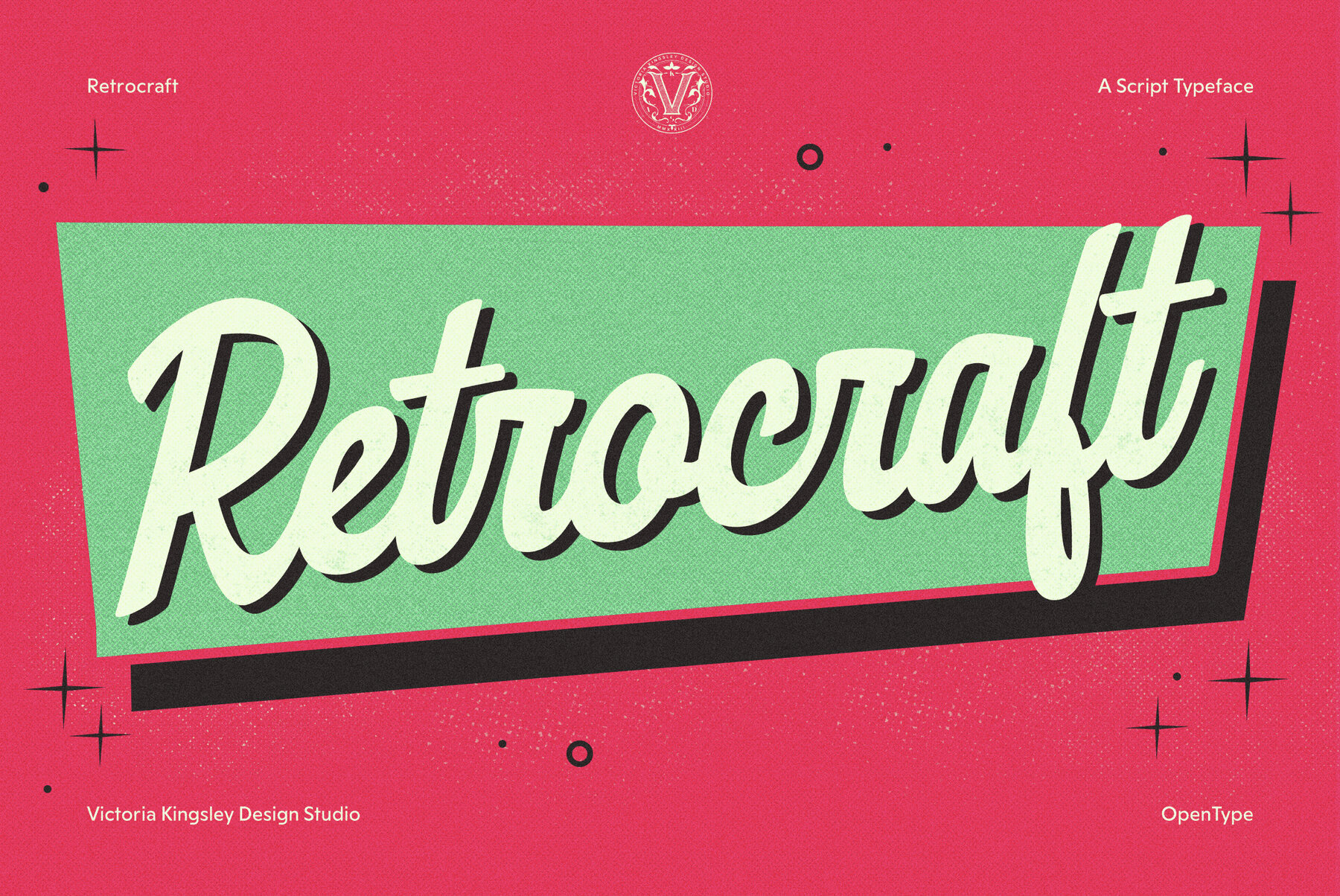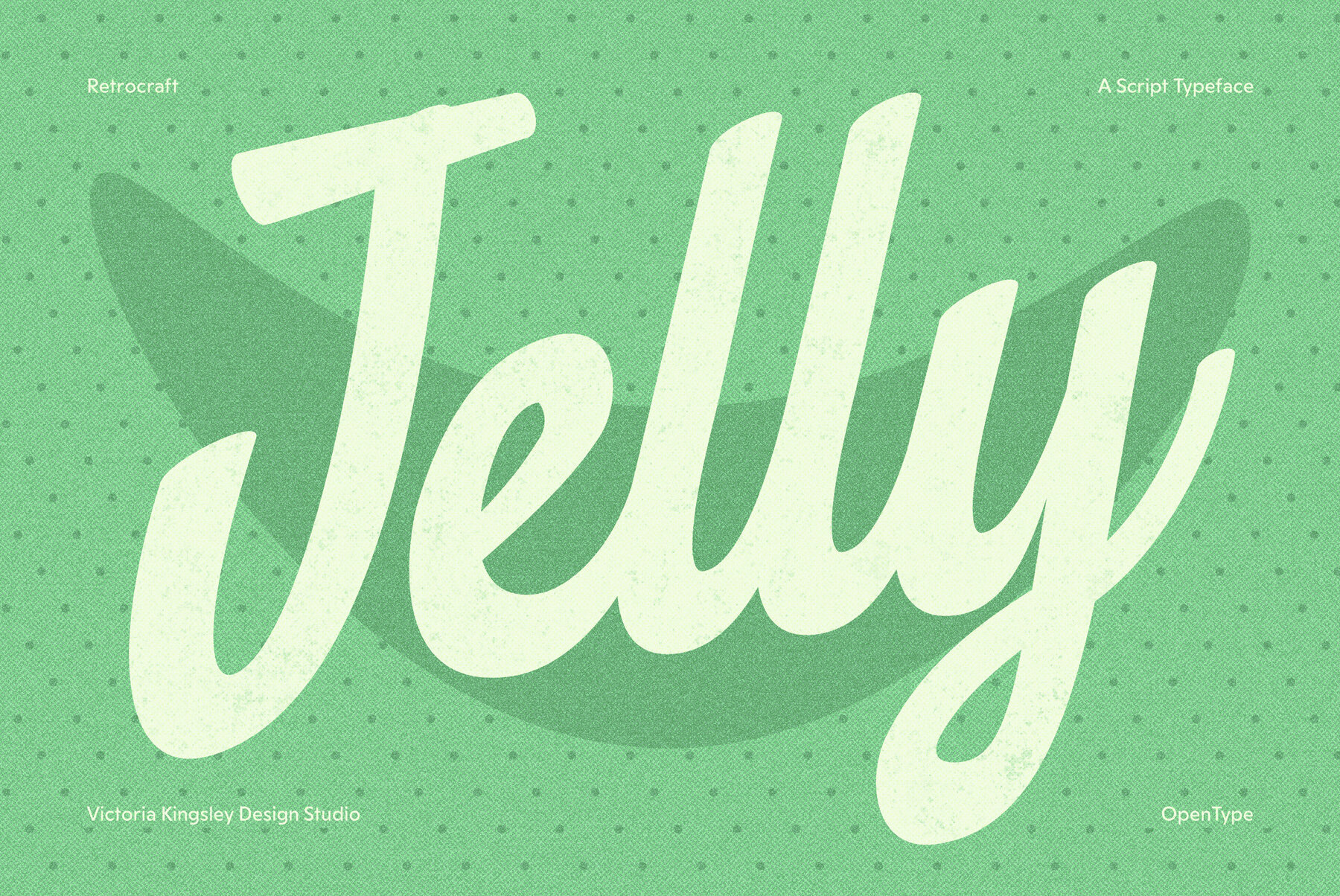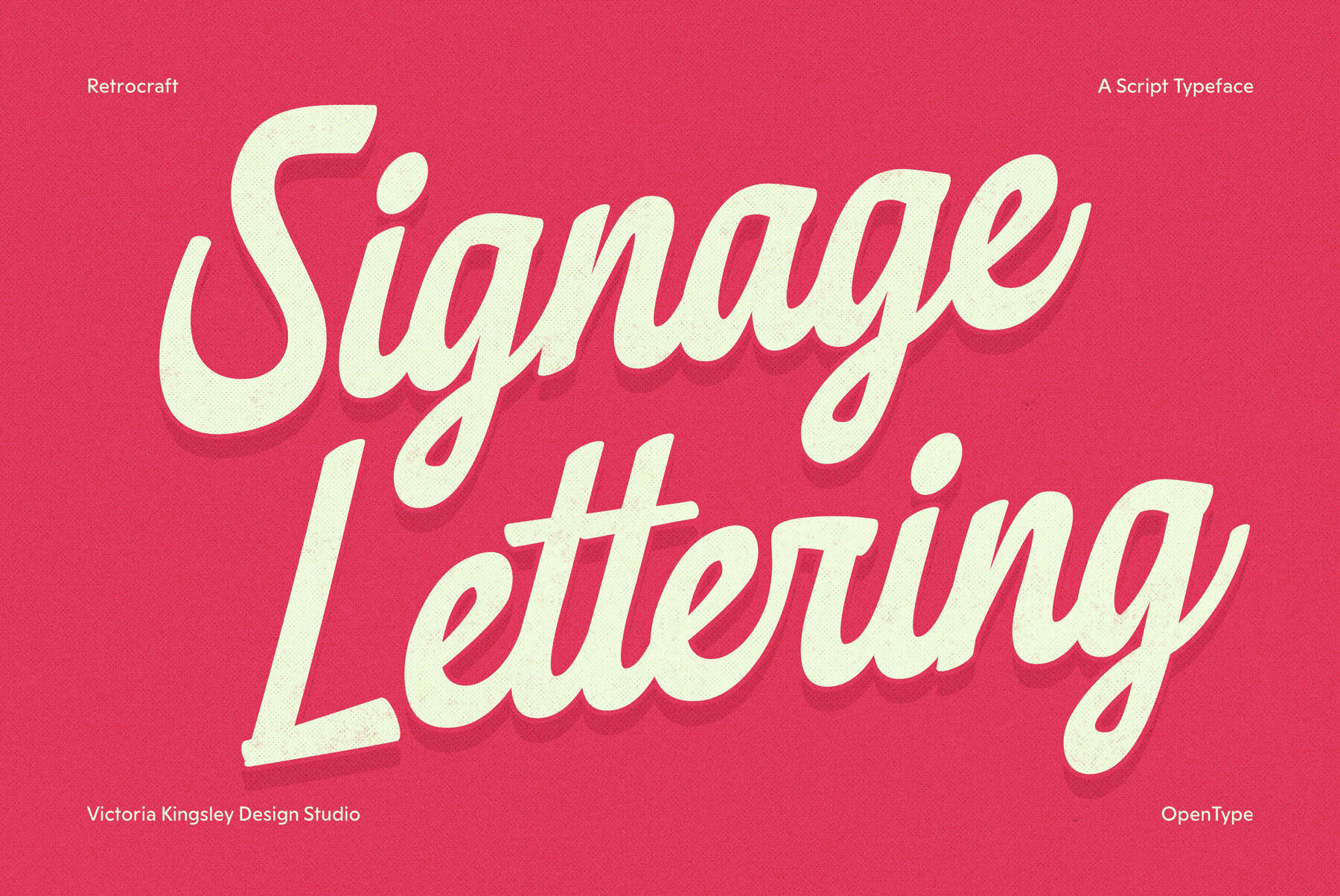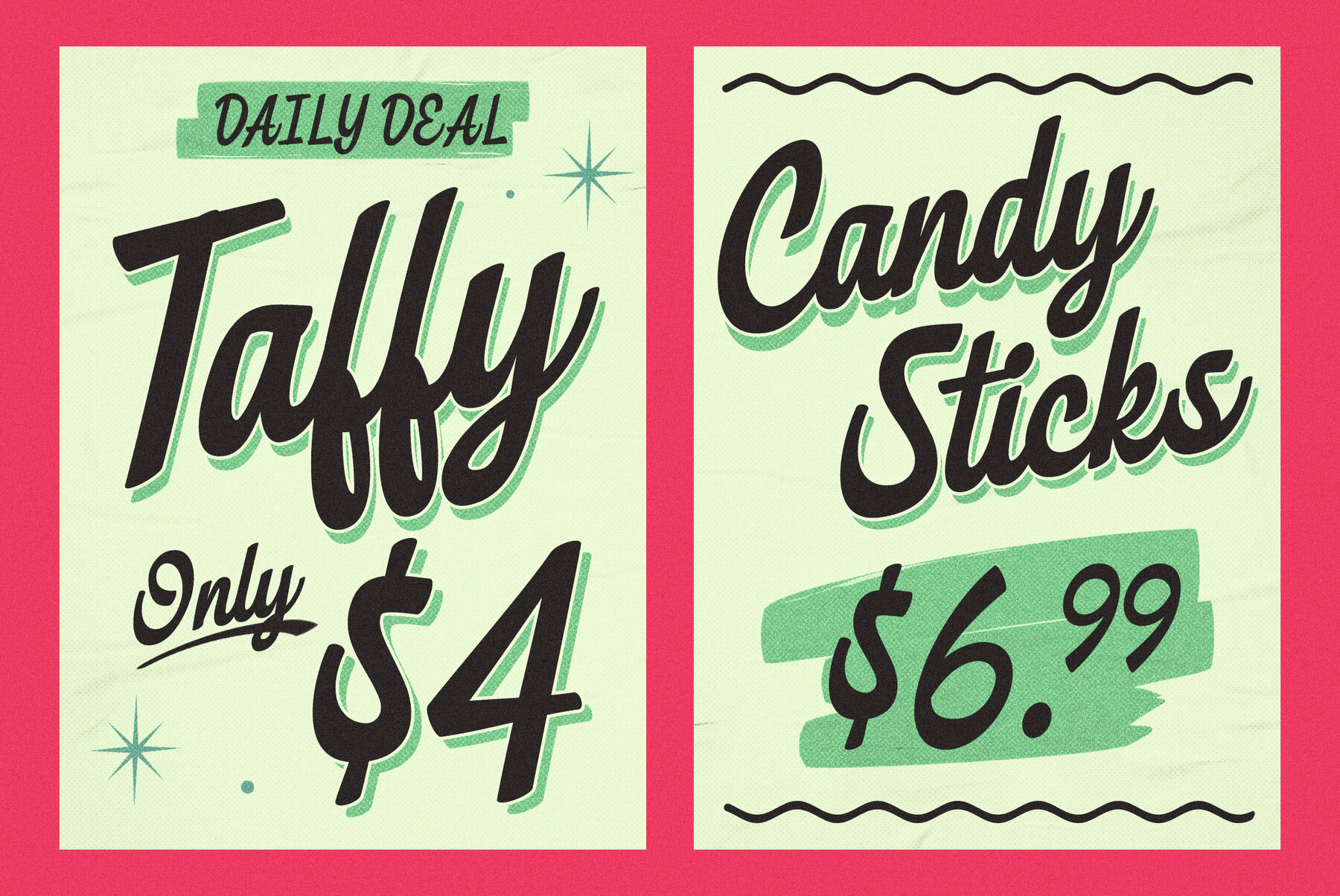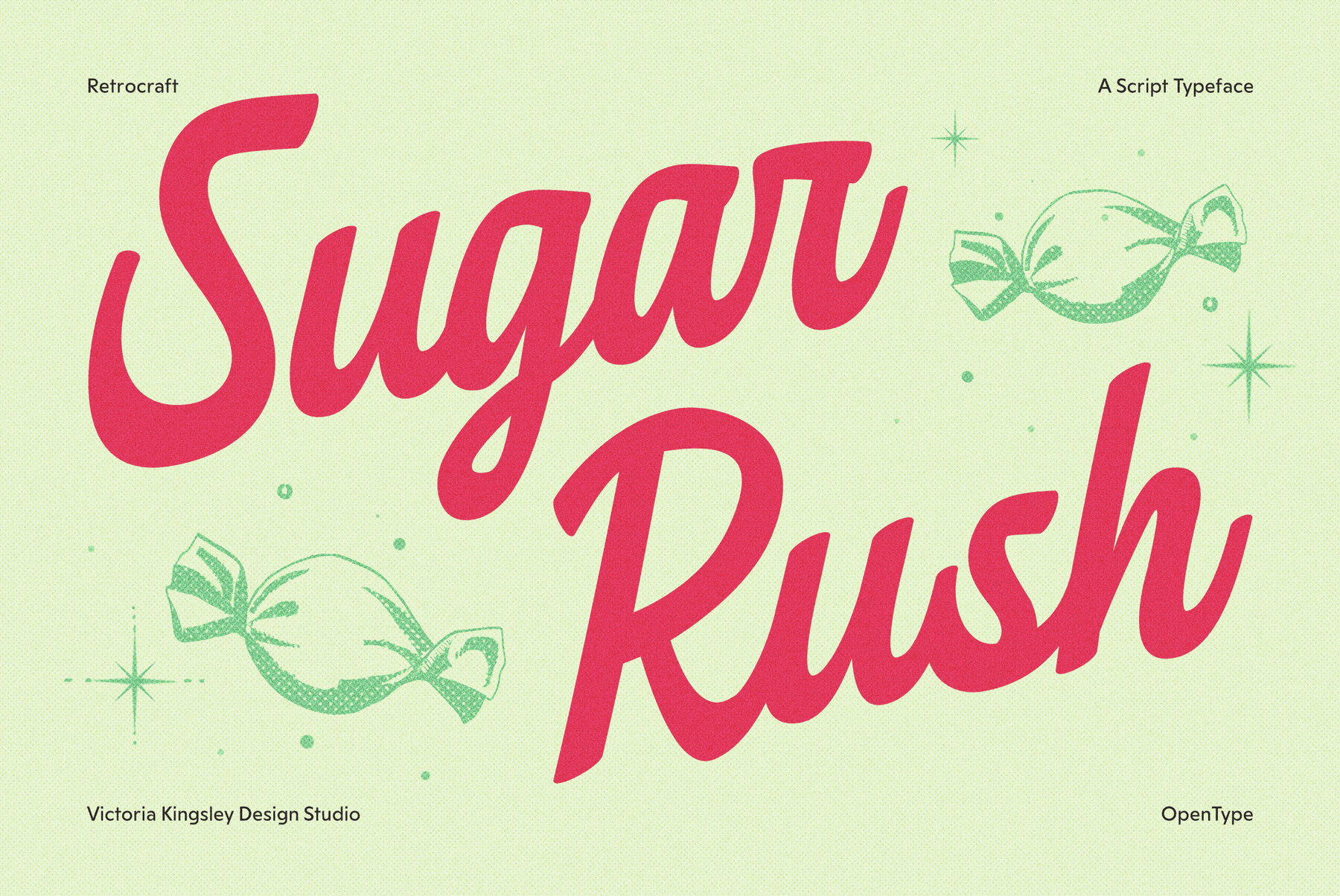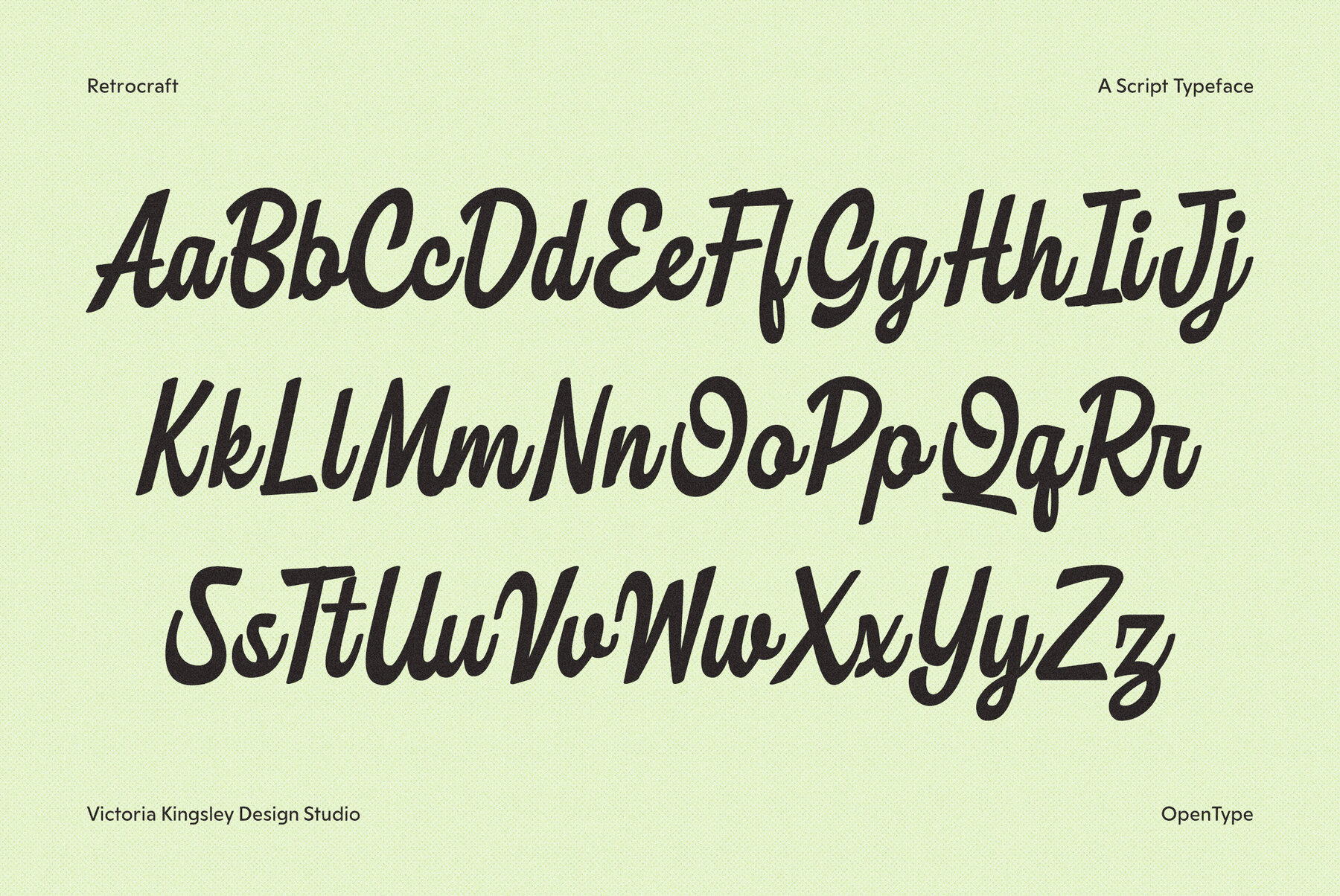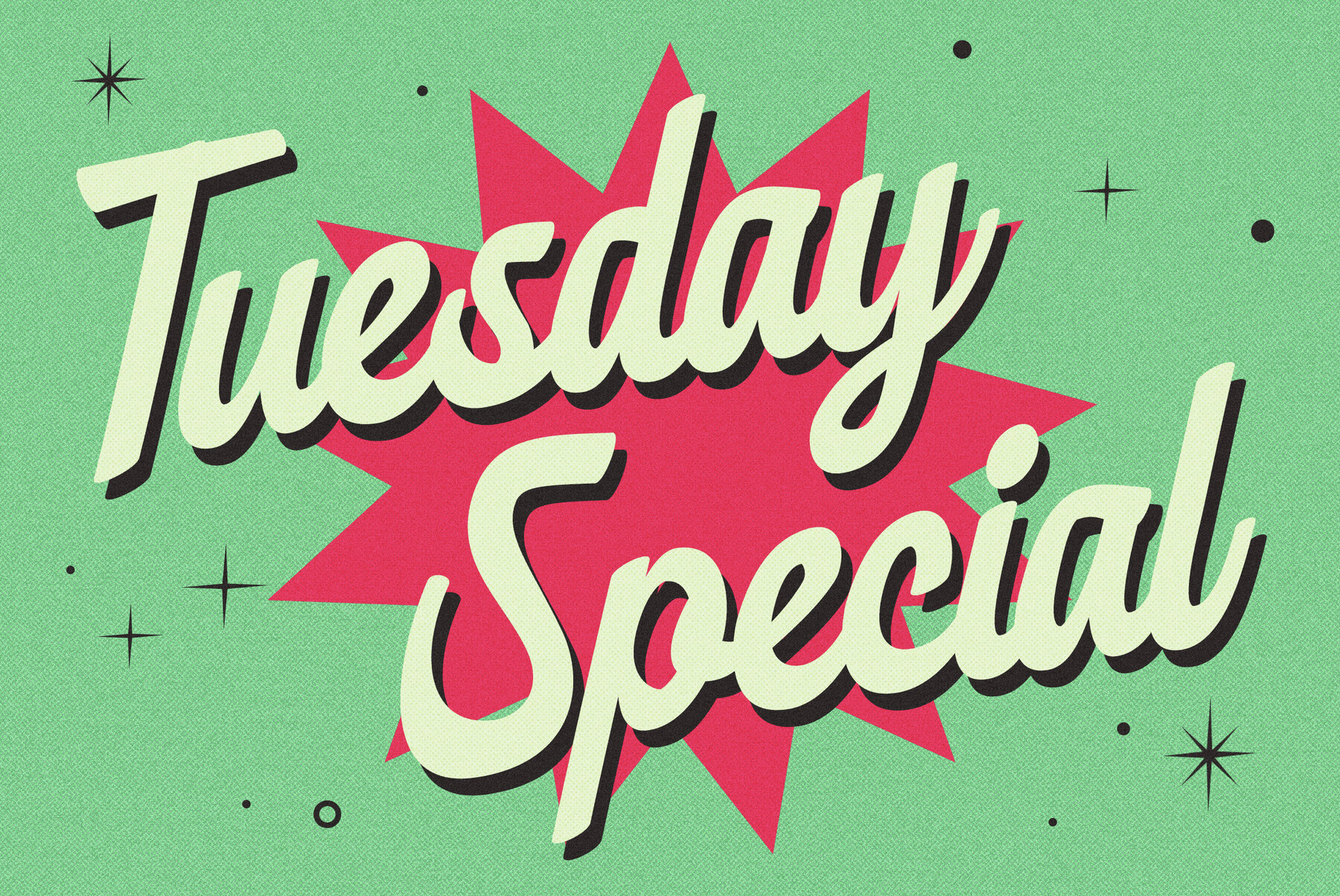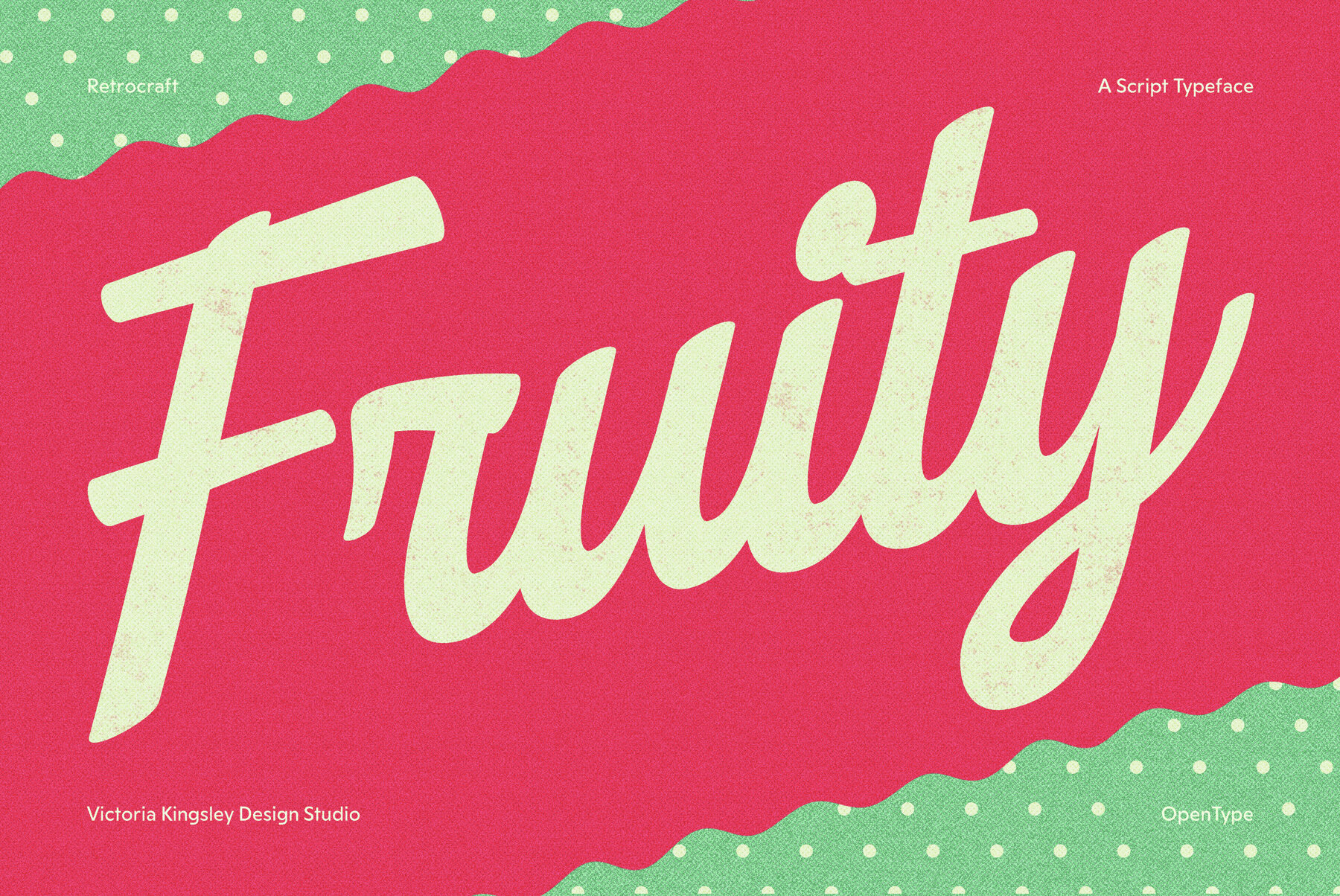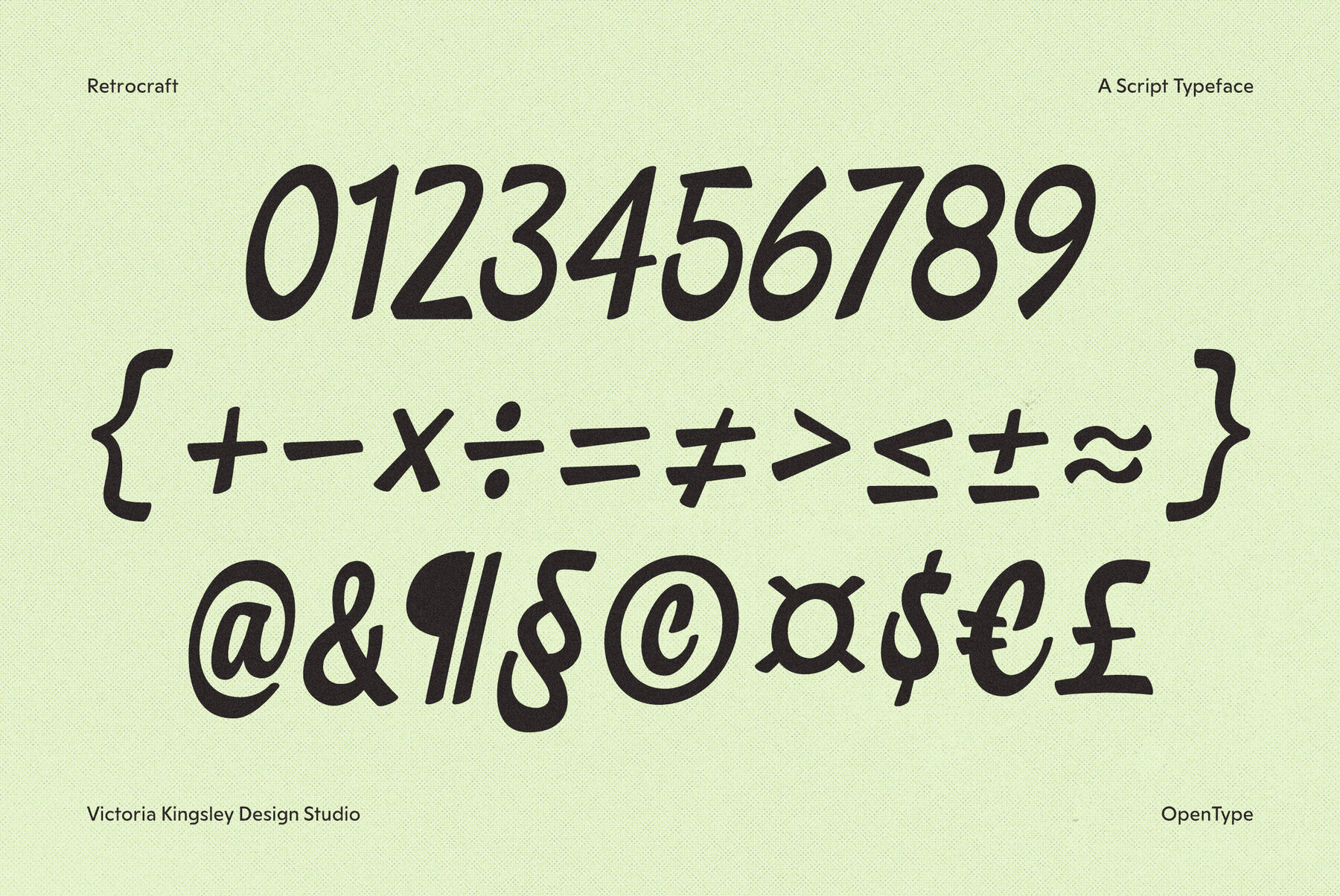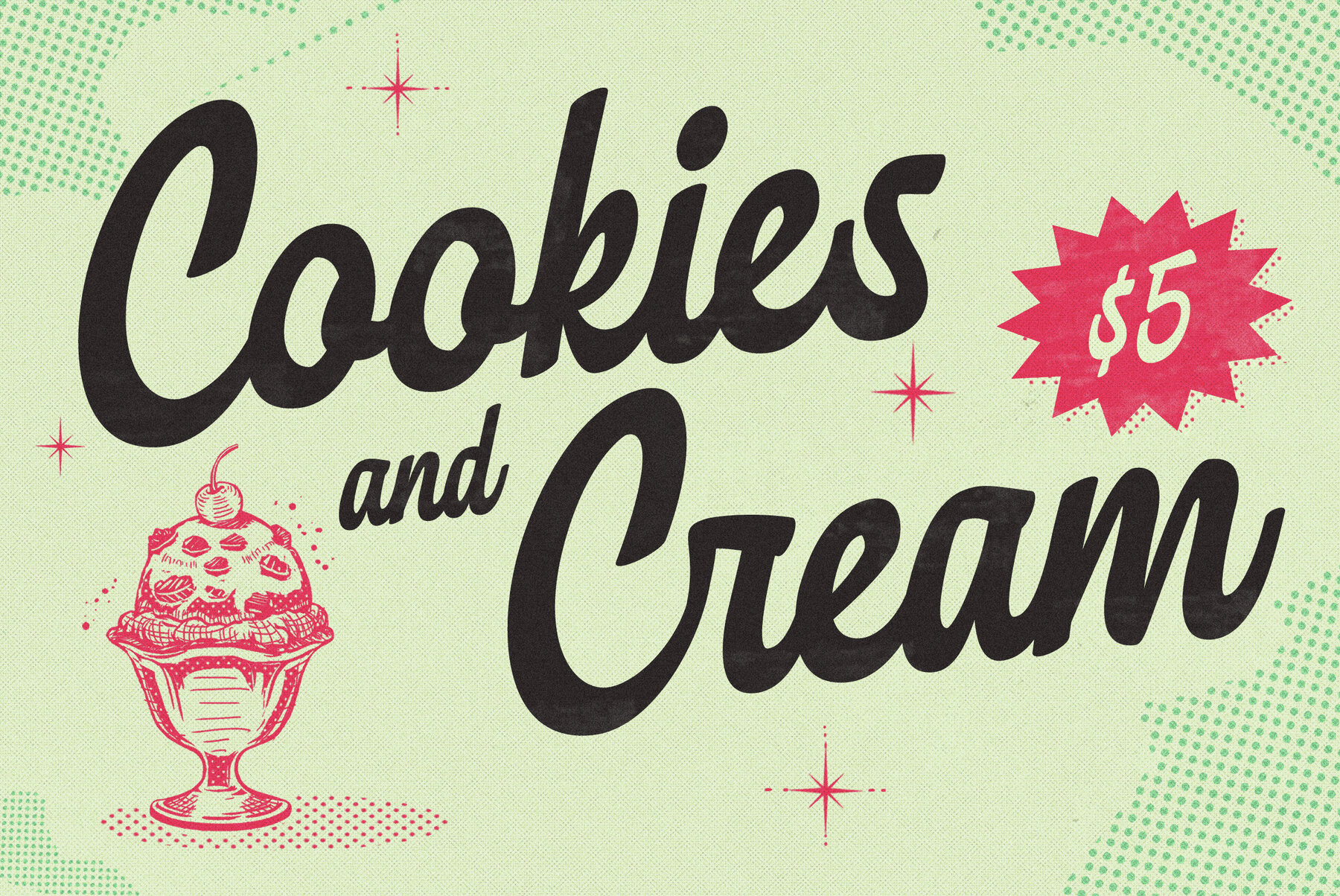
Retrocraft is a lively and expressive script font that captures the nostalgic charm of 1950s American design. With a bold, cursive style inspired by the vibrant aesthetics of retro signage, candy shops, and vintage packaging, this typeface is perfect for projects that seek to evoke a playful yet sophisticated tone. The font draws its inspiration from the golden era of American post-war optimism, embodying the spirit of progress and creativity. Influenced by hand-painted signs and the colorful world of mid-century consumer culture, Retrocraft brings a dynamic and artistic flair to any visual composition. Retrocraft is a versatile choice for a variety of design projects. Its unique blend of boldness and playfulness makes it an excellent option for: Retrocraft is more than just a typeface—it’s a gateway to a world of playful creativity. Whether you're crafting a retro-themed poster or developing a unique brand identity, this font will add a funky, artistic touch to your work. Additional products used for slideshow images: